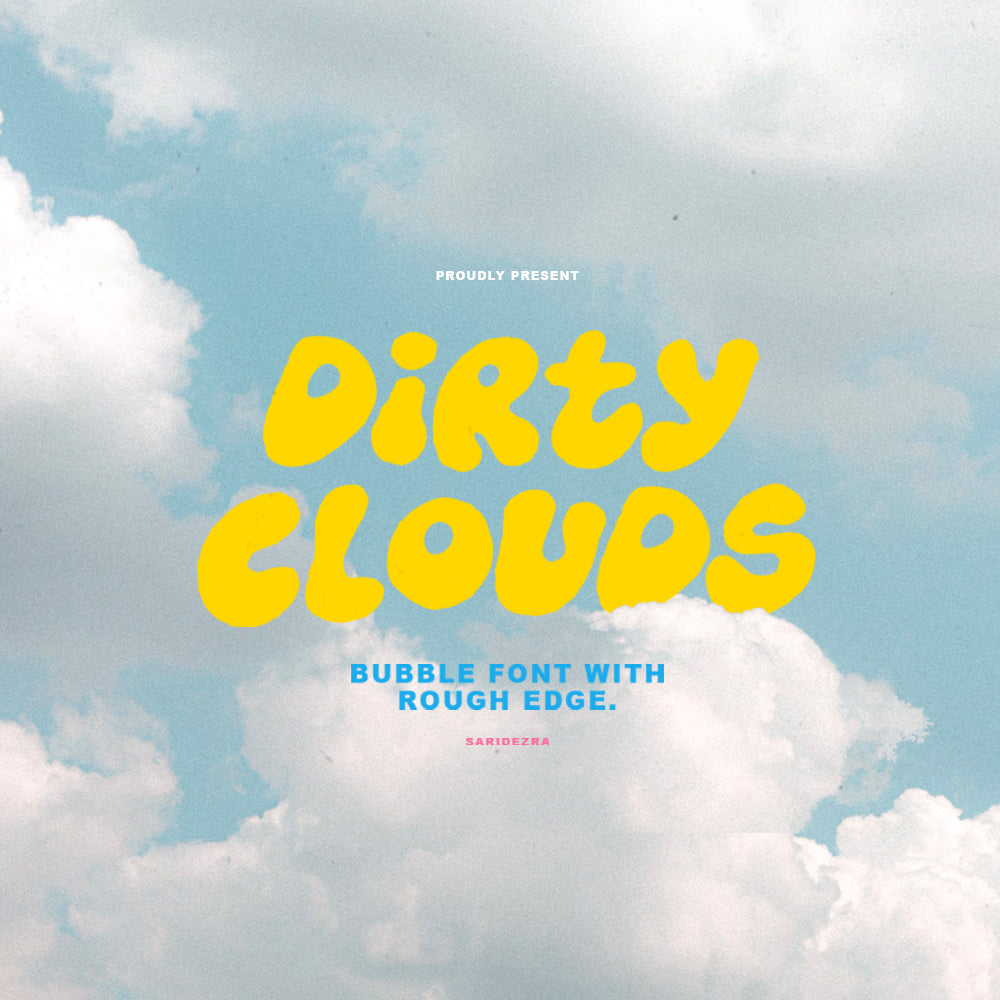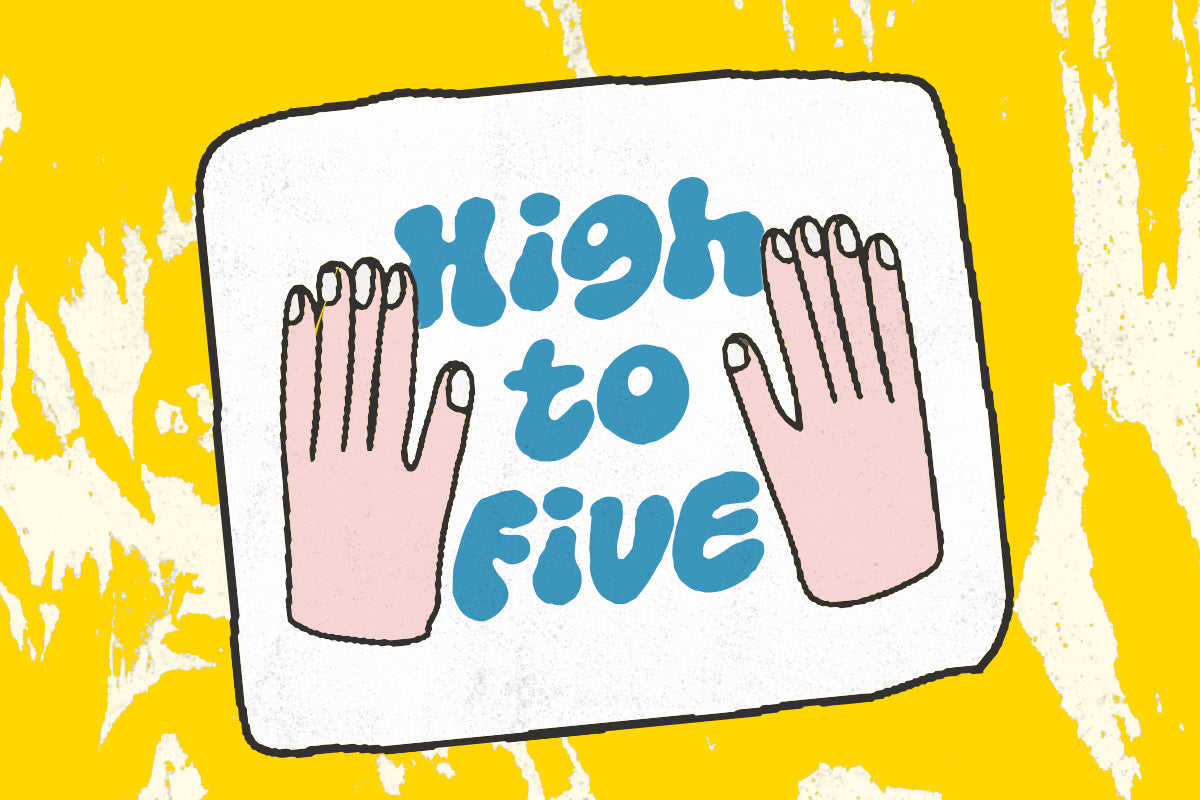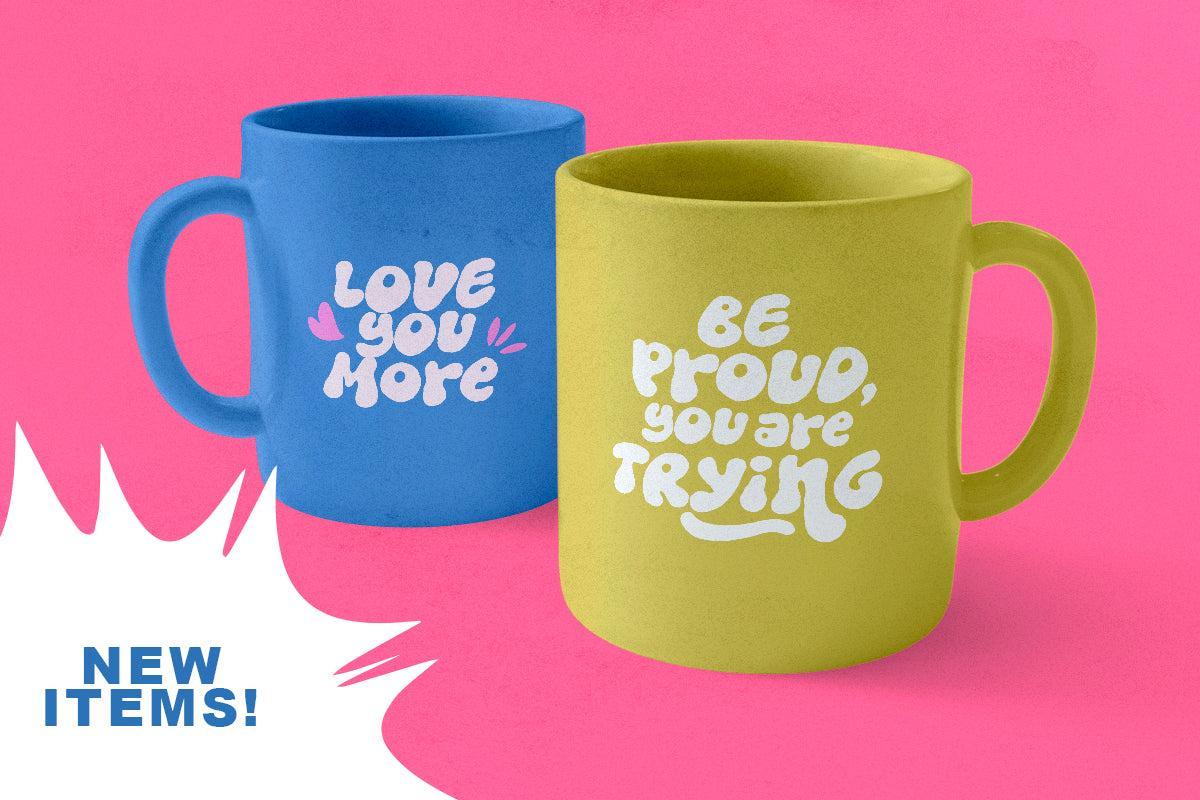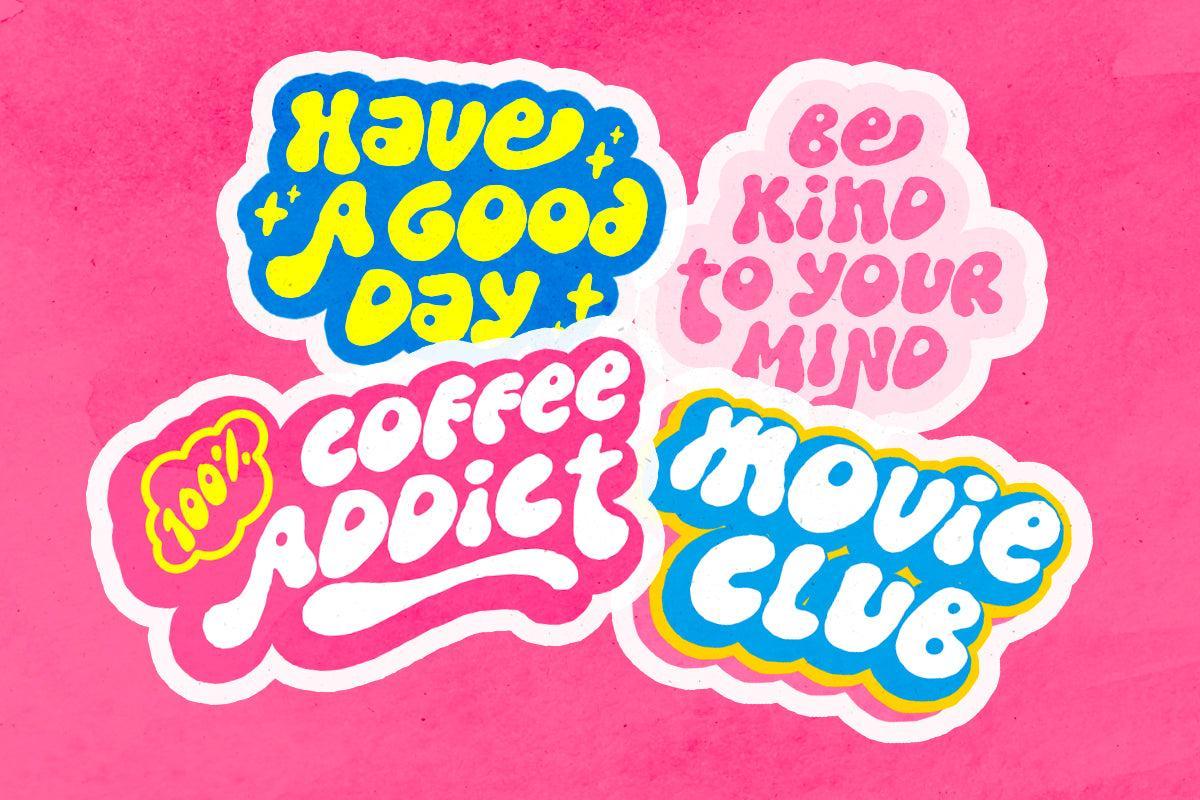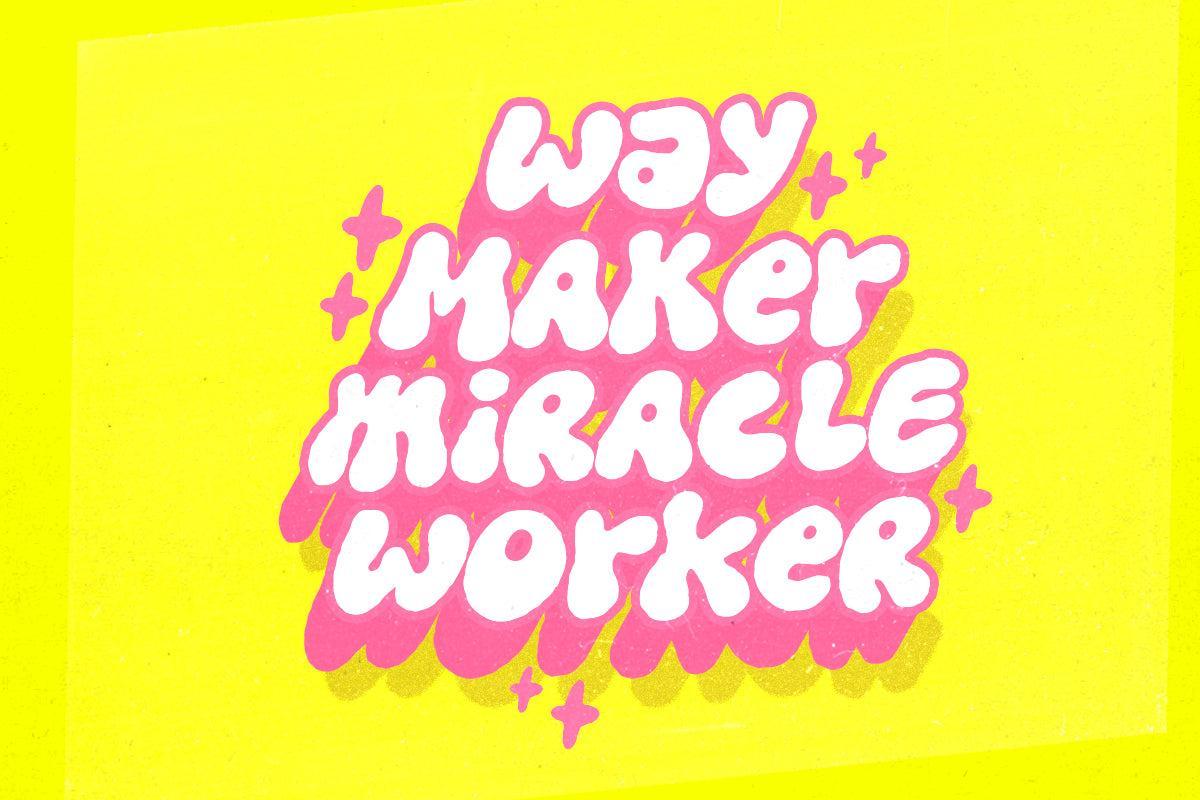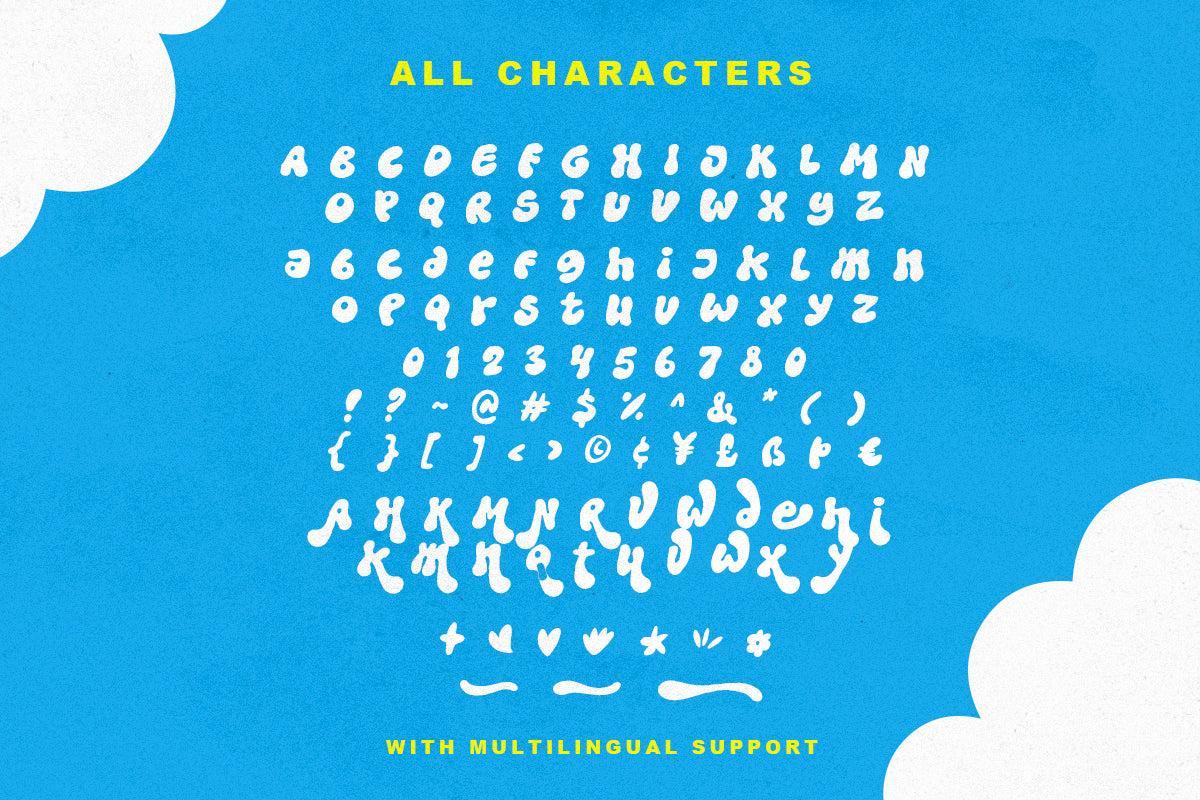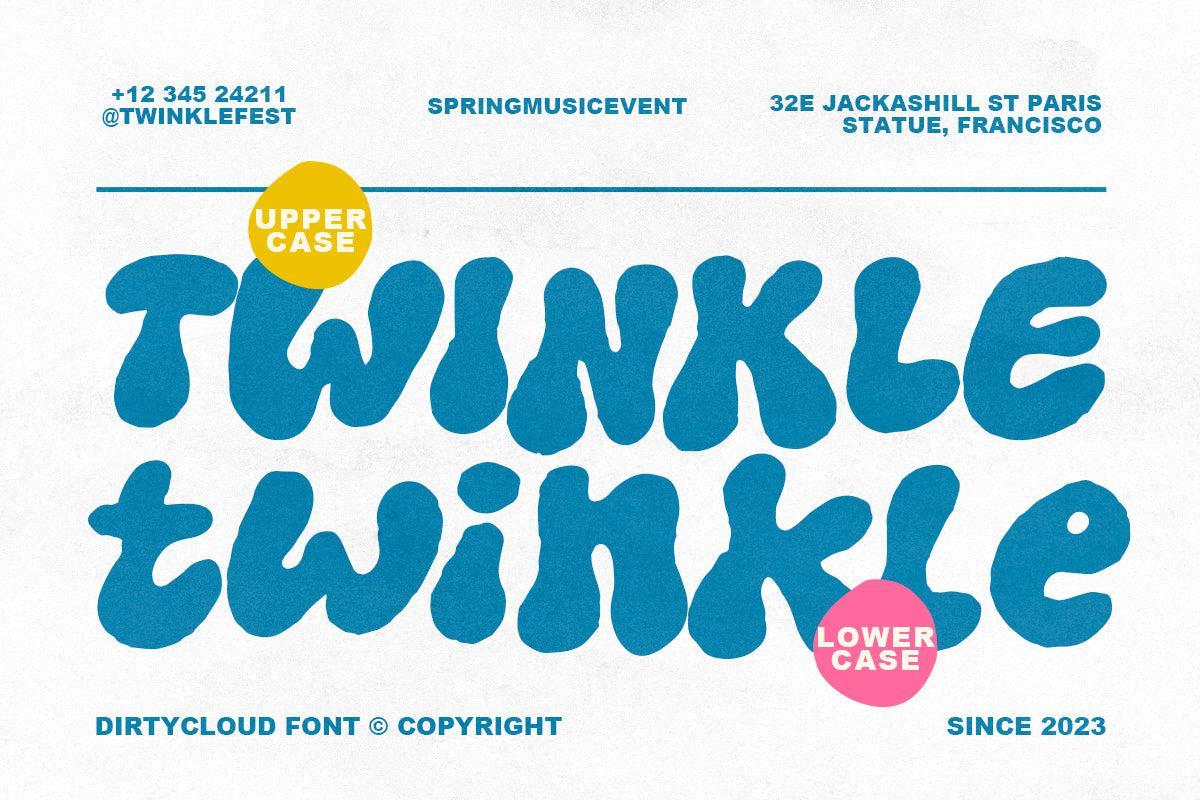
Dirty Clouds - Rough Bubble Font
Dirty Clouds is a hand-drawn rough bubble font that features a unique organic design with stylistic alternates and icons accessible via the glyphs panel. It supports multiple languages and is suitable for various applications like posters, branding, and stickers, enhancing your projects with a handmade touch.